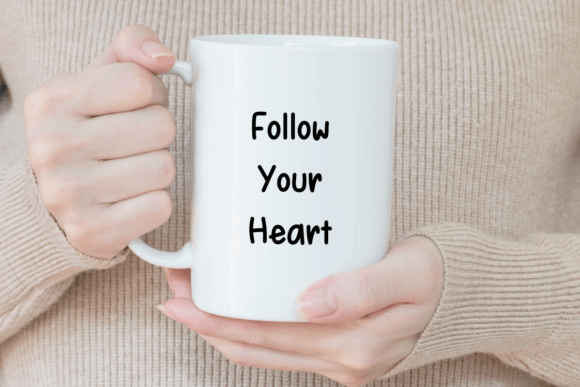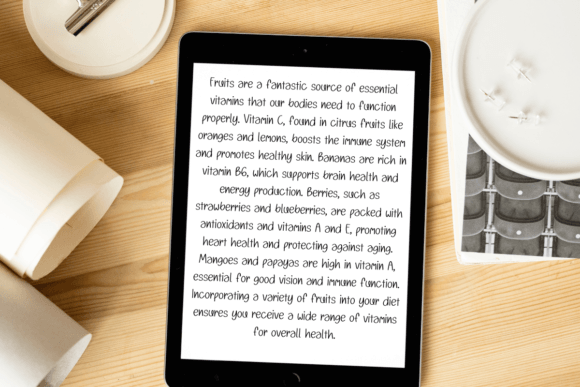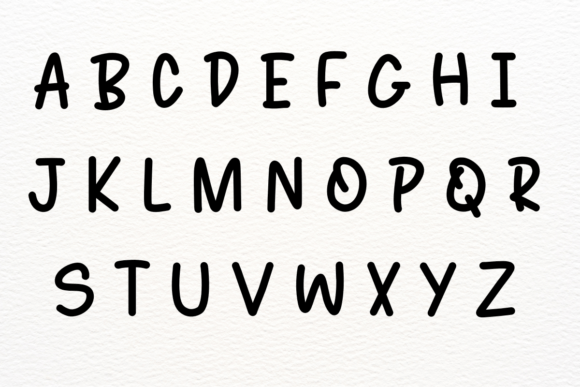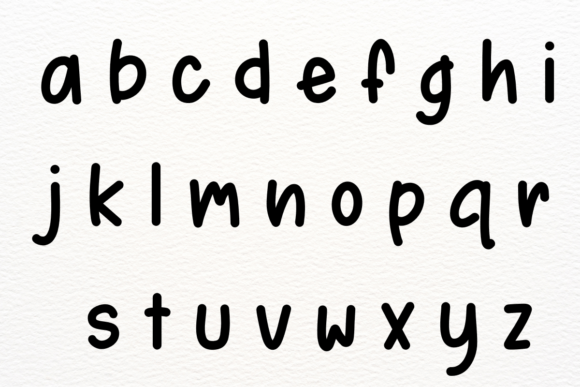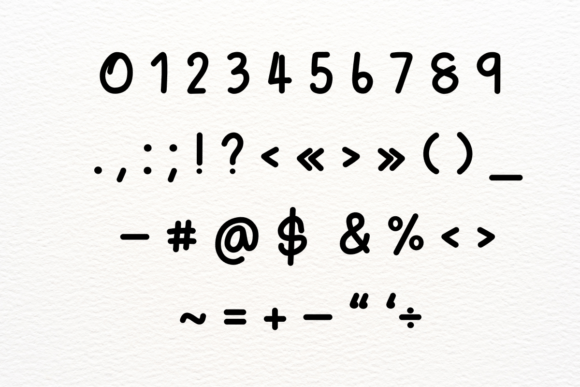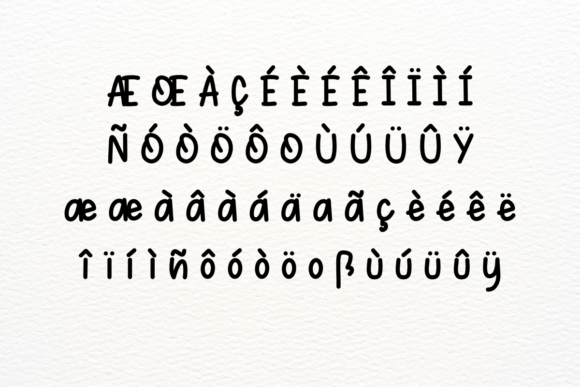
Introducing CuteGracelyn Font: The Perfect Blend of Whimsy and Elegance
Are you a designer or crafter looking for a font that can add a touch of magic to your projects? Look no further than CuteGracelyn, a charming and playful font that’s perfect for a variety of applications. In this article, we’ll take a closer look at the features and benefits of CuteGracelyn, and explore how it can elevate your designs to the next level.
A Font that’s as Cute as it is Elegant
CuteGracelyn is a unique font that combines the best of both worlds: whimsy and elegance. Its smooth, flowing lines and delightful, rounded edges make it a joy to use in a variety of projects, from invitations and greeting cards to children’s books and digital designs. Whether you’re creating something for a client or for your own personal use, CuteGracelyn is sure to bring a smile to your face and a touch of sophistication to your work.
One of the things that sets CuteGracelyn apart from other fonts is its versatility. It’s perfect for a wide range of projects, including:
- Invitations: Whether you’re planning a wedding, birthday party, or baby shower, CuteGracelyn is the perfect font to use on your invitations. Its elegant and playful design will set the tone for a fun and memorable event.
- Greeting Cards: CuteGracelyn is also great for creating greeting cards for special occasions. Its smooth lines and rounded edges make it easy to read and fun to look at.
- Children’s Books: If you’re creating a children’s book, CuteGracelyn is an excellent choice. Its playful design will appeal to kids and parents alike, and its easy-to-read font will make it a joy to read aloud.
- Digital Designs: CuteGracelyn is also perfect for digital designs, such as social media graphics, blog posts, and website headers. Its clean and elegant design will add a touch of sophistication to any digital project.
Why Choose CuteGracelyn?
So why choose CuteGracelyn over other fonts? Here are just a few reasons:
- Easy to Read: CuteGracelyn is designed to be easy to read, even at small sizes. This makes it perfect for digital designs, where legibility is key.
- Versatile: As mentioned earlier, CuteGracelyn is versatile and can be used in a wide range of projects.
- Unique: CuteGracelyn has a unique and distinctive design that will set your projects apart from the crowd.
- Playful: CuteGracelyn has a playful and whimsical design that’s perfect for projects that need a touch of fun and personality.
Tips for Using CuteGracelyn
Here are a few tips for using CuteGracelyn in your projects:
- Use it with Images: CuteGracelyn looks great when paired with images, especially illustrations and graphics. Try using it to add text to your images, or to create custom graphics.
- Experiment with Colors: CuteGracelyn looks great in a variety of colors, so don’t be afraid to experiment. Try using it with bright and bold colors, or with more muted and pastel shades.
- Mix it with Other Fonts: CuteGracelyn can be paired with other fonts to create a unique and interesting look. Try using it with a bold and sans-serif font for a fun and modern contrast.
CuteGracelyn is a charming and playful font that’s perfect for designers and crafters who want to add a touch of whimsy and elegance to their projects. Its smooth lines, rounded edges, and easy-to-read design make it versatile and perfect for a wide range of applications. Whether you’re creating invitations, greeting cards, children’s books, or digital designs, CuteGracelyn is sure to bring a smile to your face and a touch of sophistication to your work.